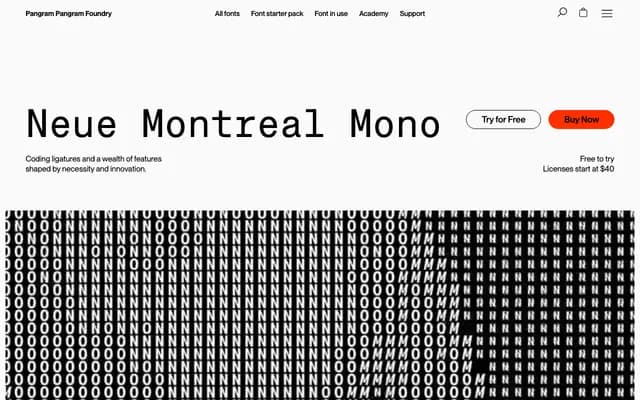
PP Neue Montreal Mono
A monospaced version of Neue Montreal with coding ligatures, multilingual support and a special button-mode for UI work.
PP Neue Montreal Mono is the monospace version of the foundry's bestseller, built for designers and developers who want their code voice to match their brand voice. It runs across seven weights upright and italic for 14 styles plus a variable cut, includes coding ligatures and a special Button-mode for UI work, and keeps the calm structural feel of the parent grotesque.
Monospaced version of PP Neue Montreal, with coding ligatures, multilingual support and a Button-mode feature; seven weights upright and italic for 14 styles plus a variable cut.